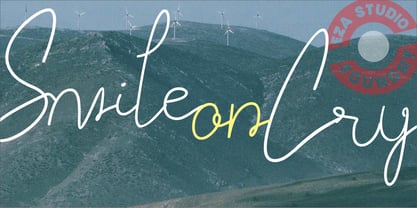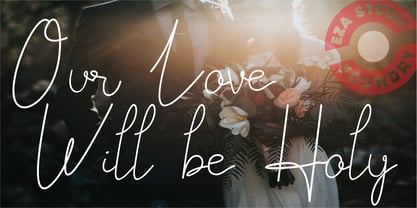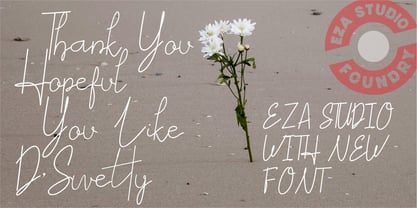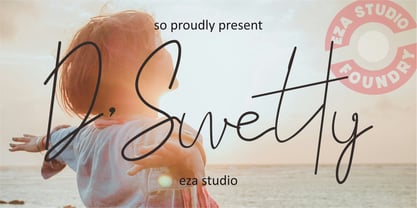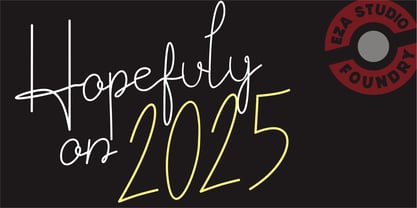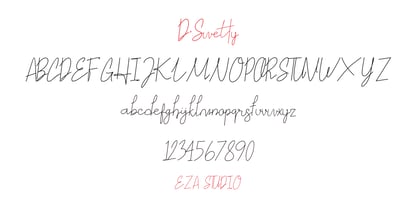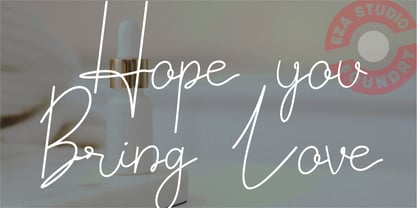
DSwetty
by Eza Studio
The DSwetty Font Family was designed by Aziz Mirza and published by Eza Studio. DSwetty contains 1 styles.
Hallo There, this is our new font. the name is D'Swetty, just one style scrip italic.
Designers: Aziz Mirza
Publisher: Eza Studio